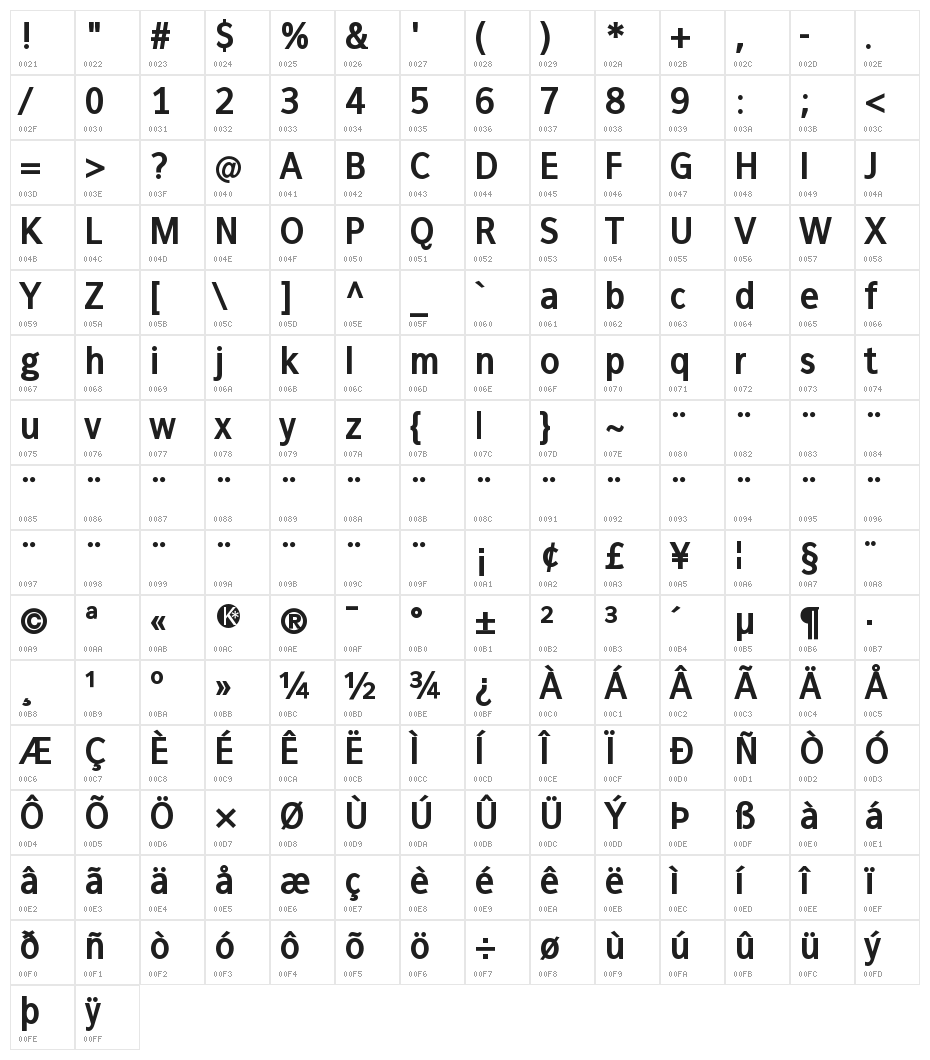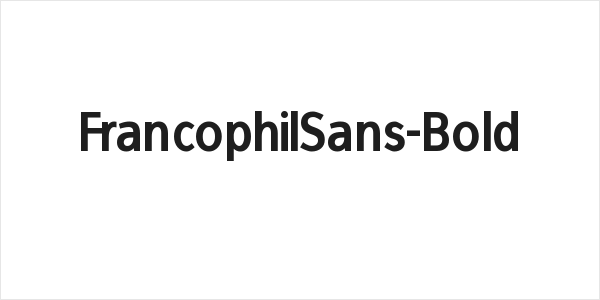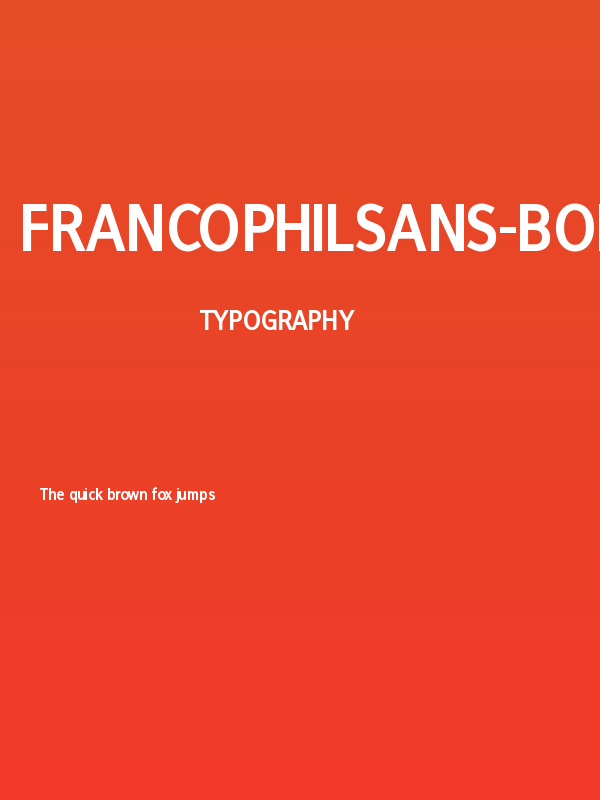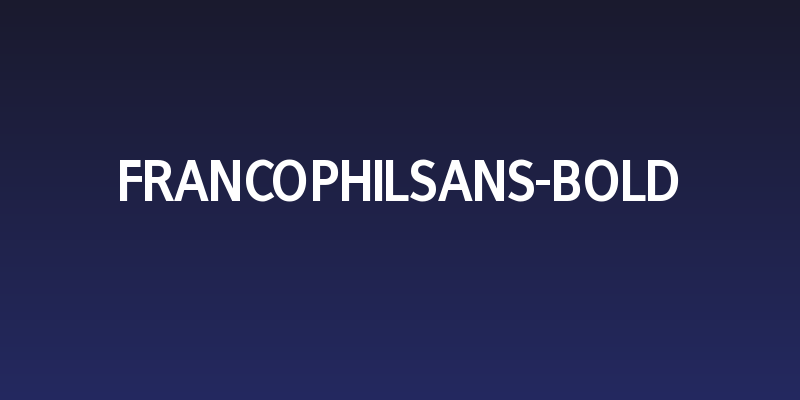
FrancophilSans-Bold Font
FrancophilSans-Bold Description
This typeface is a bold, sans-serif font characterized by its clean and modern appearance. The letters are well-proportioned with a uniform stroke width, providing a strong and assertive look. The uppercase and lowercase letters maintain a consistent style, ensuring readability and versatility. The numerals are clear and distinct, making them suitable for various applications. Special characters are included, enhancing the font's functionality for diverse uses. Its bold weight and straightforward design make it ideal for making impactful statements while maintaining clarity.
| Use Case | Headlines, Logos, Digital content |
| Proposed Projects | Ideal for branding, advertising, headlines, and digital content where a strong, modern presence is desired. |